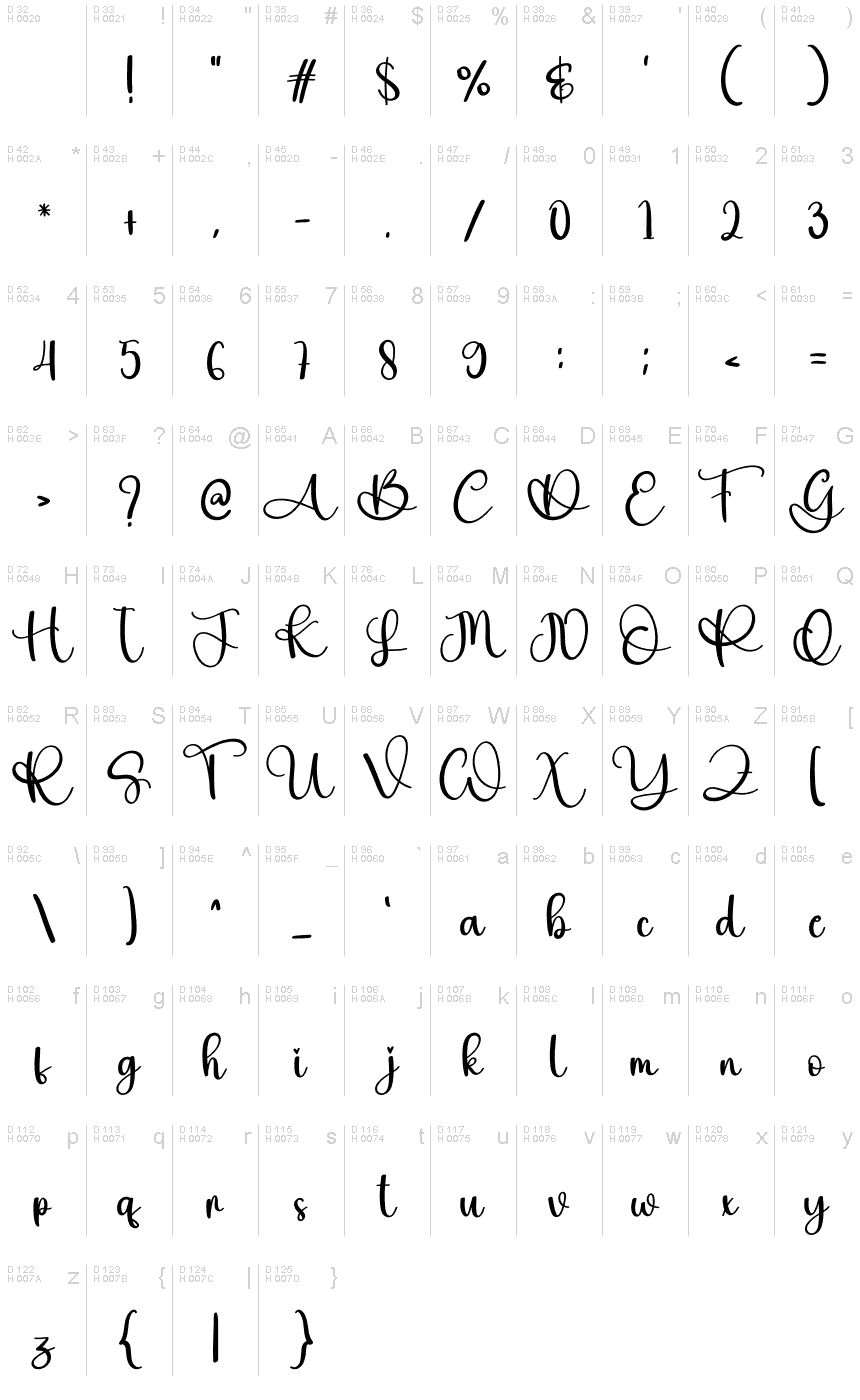
The Right
The Right, a mesmerizing calligraphy font by scratchones, gracefully combines elegance with a touch of playfulness. Its semi-light weight makes it perfect for projects that require a sophisticated yet approachable feel. This versatile font is ideal for wedding invitations, luxury branding, book covers, and romantic designs that seek to captivate the audience. With its fluid strokes and impeccable curves, The Right adds an element of grace to any project while maintaining legibility. Elevate your creations with this enchanting calligraphy font that brings timeless beauty to the forefront.
The latest style letters are perfect for wall displays, wedding invitations, social media post logos, advertisements, product packaging, product designs, labels, photography, watermarks, invitations, stationery, and any project that requires taste handwriting.